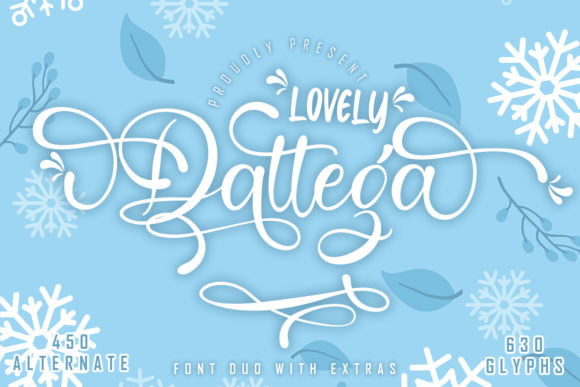
Journey into the world of exclusive typography with Lovely Dattega Font, an enchanting duo that captures the allure of personalized signatures. Envision your designs adorned with the graceful strokes of this script font, intertwining seamlessly with the clean lines of its sans serif companion. Together, they paint a picture of understated elegance, adding a touch of sophistication to any project.
Welcome to the realm of Lovely Dattega Font, where creativity flourishes and individuality shines. Whether you're a seasoned designer or just starting your artistic journey, this font family beckons you to explore its versatile depths. Discover the transformative power it holds, as it effortlessly elevates your creations to new heights of visual appeal.
Immerse yourself in the beauty of Lovely Dattega's script font, where each letter dances across the page like a delicate melody. Its flowing lines and enchanting curves evoke a sense of timeless charm, lending an air of elegance to your designs. From heartfelt invitations to enchanting logos, this font breathes life into words, leaving a lasting impression on all who encounter it.
Complementing the script's graceful allure is the sans serif companion, a beacon of clarity and simplicity. Its clean lines and modern aesthetic provide a strong foundation for your designs, allowing the script's beauty to truly shine. Together, they form a harmonious duo, capable of transforming ordinary words into captivating statements.
With Lovely Dattega Font, the possibilities are boundless. Its versatility extends across a vast spectrum of design projects, from branding and marketing materials to social media graphics and website designs. Its ability to adapt to any style or theme makes it an indispensable tool in the arsenal of any creative professional.
Unleash your imagination and witness the magic unfold as Lovely Dattega Font enhances your designs with a touch of elegance, sophistication, and charm. Embrace the beauty of personalized typography and let your creativity soar to new heights.